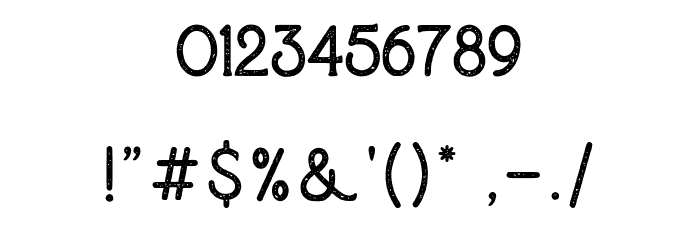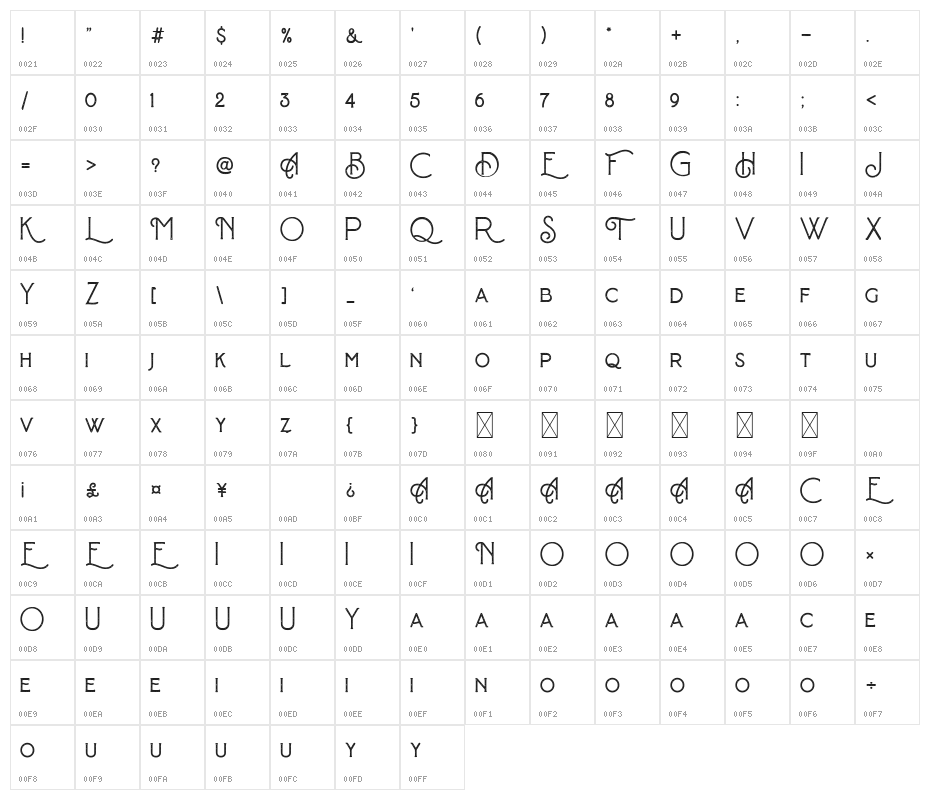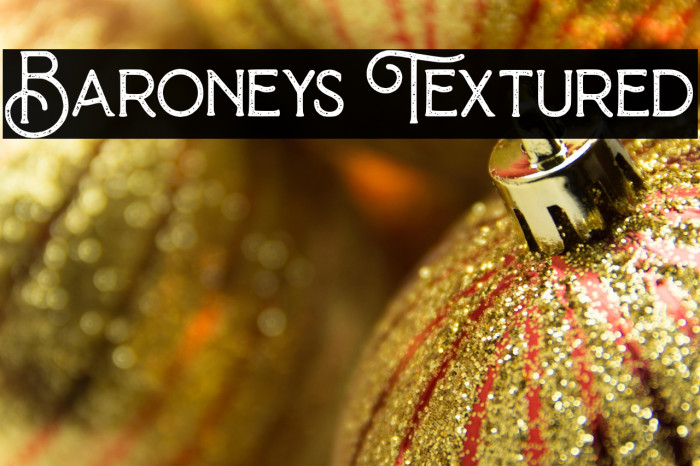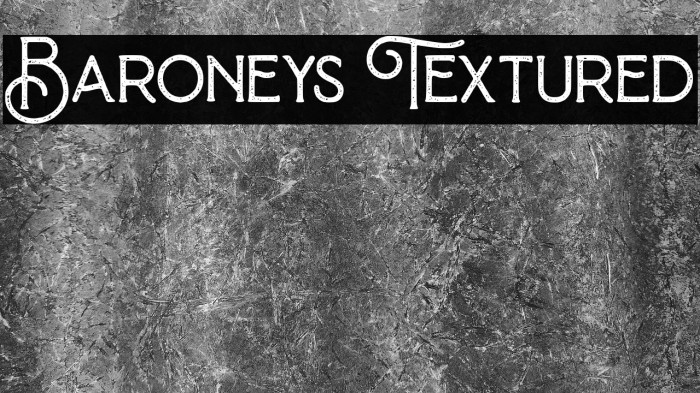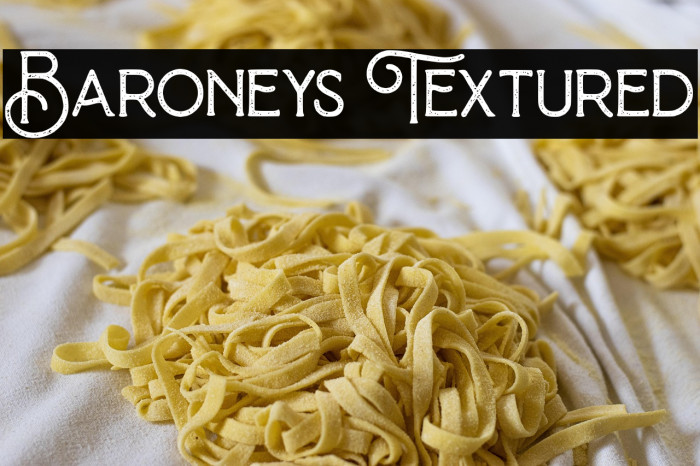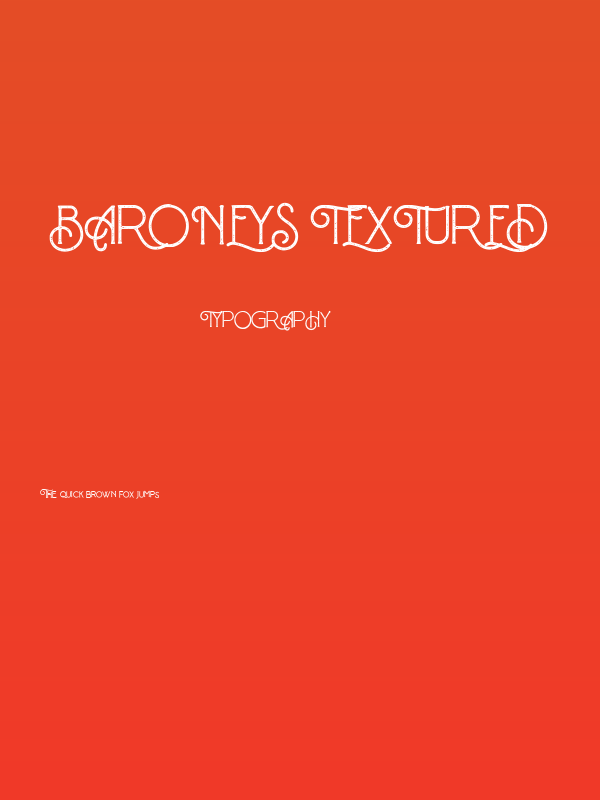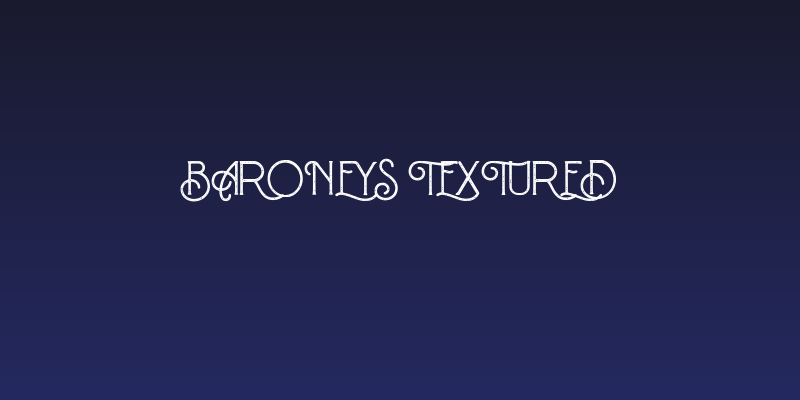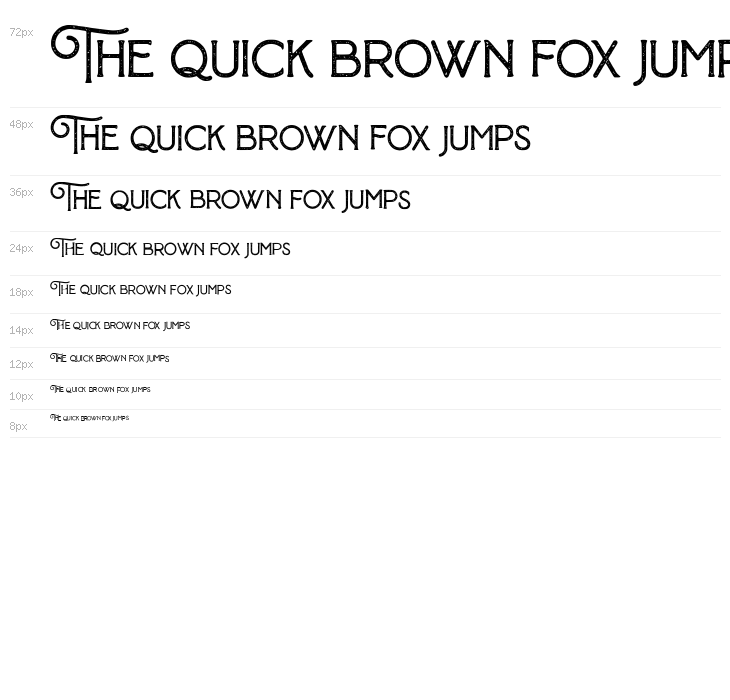
Baroneys Textured Font
Baroneys Textured Description
This font features a unique textured style with an artistic flair, combining elements of both decorative and classic design. The uppercase letters are adorned with intricate swirls and loops, giving them a whimsical and elegant appearance. The lowercase letters maintain a more straightforward yet complementary style, ensuring readability while still offering a touch of creativity. The numerals and special characters are consistent with the overall theme, providing a cohesive look across all glyphs. This font's textured effect adds depth and character, making it stand out in various design applications.
| Proposed Projects | Ideal for wedding invitations, vintage-themed posters, artistic branding, and decorative signage. |